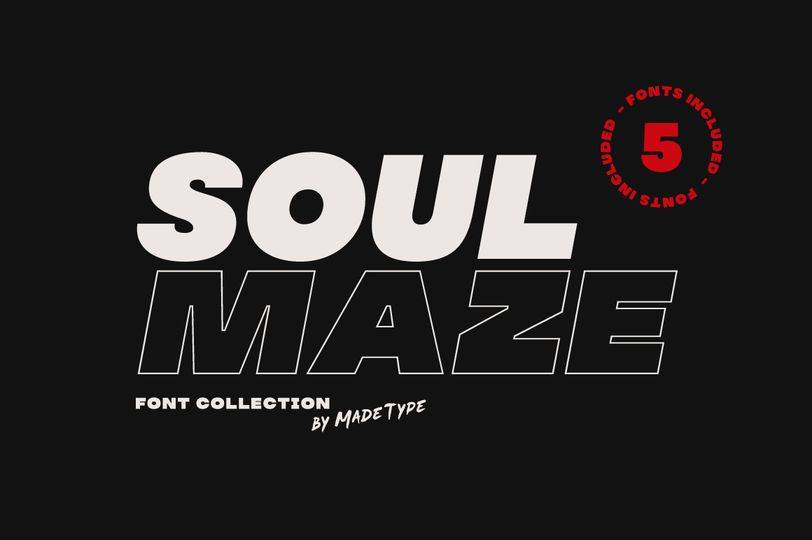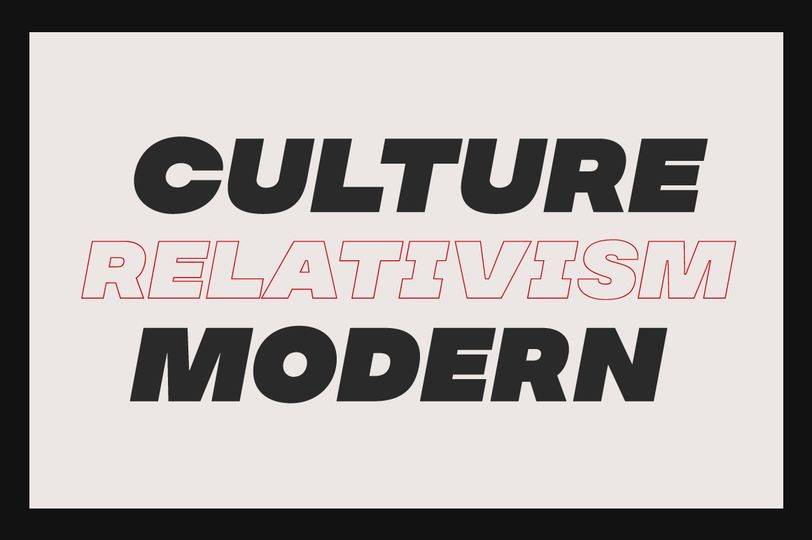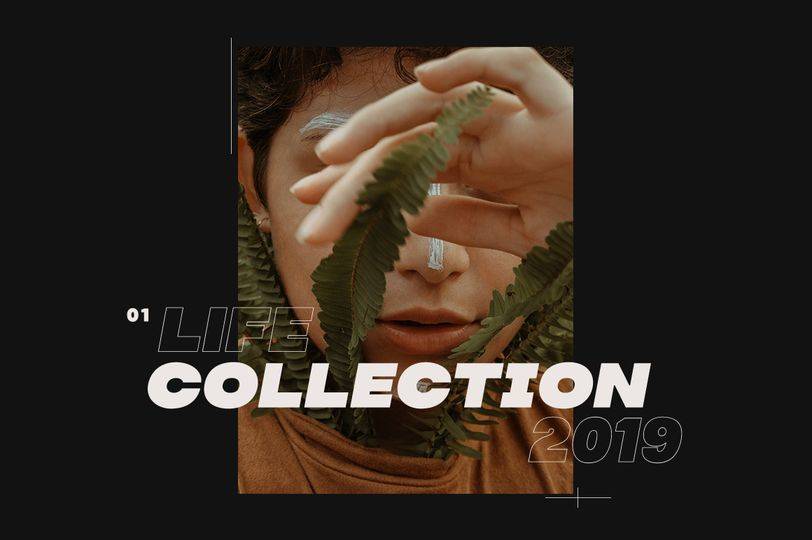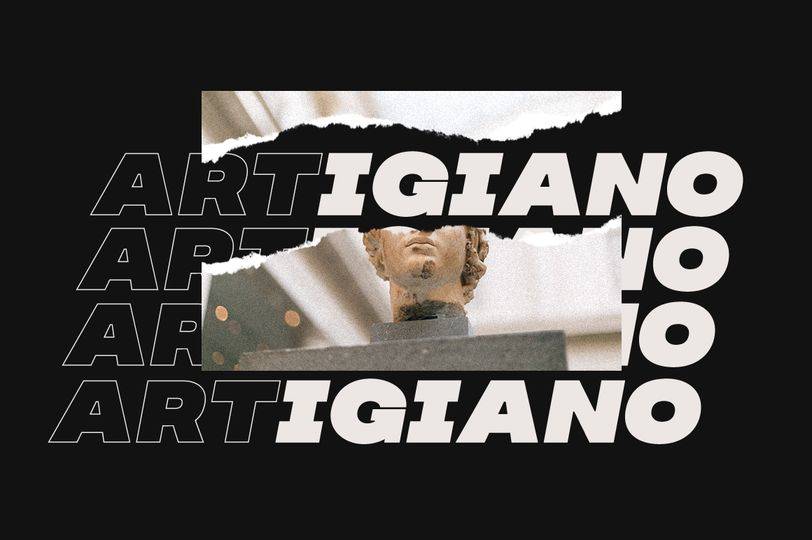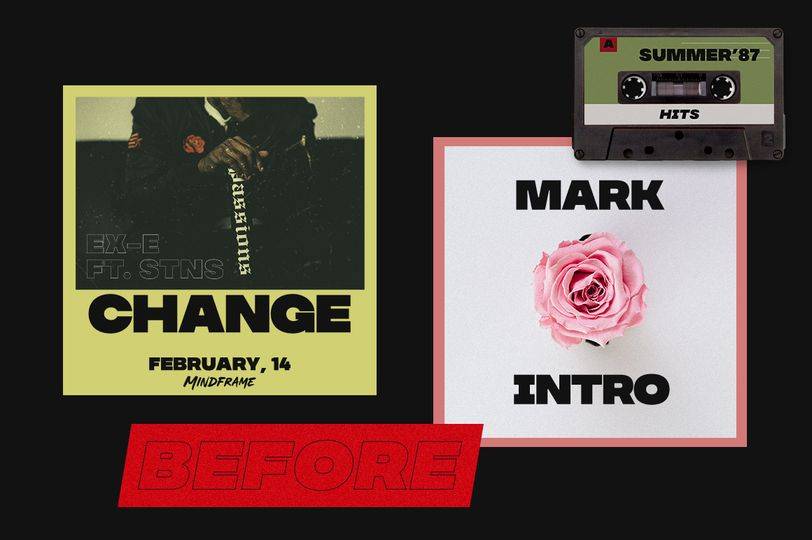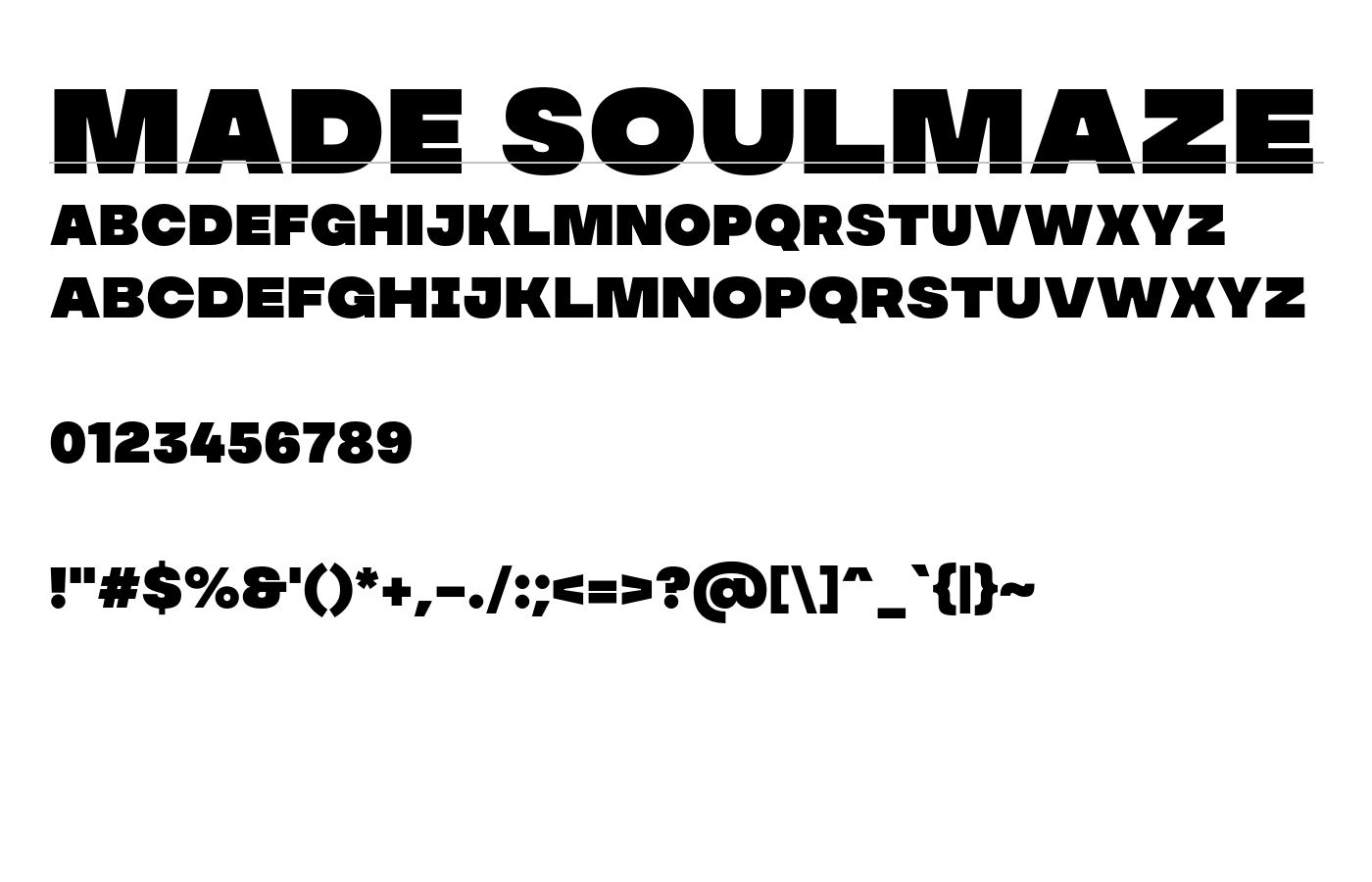
MADE Soulmaze is a bold, heavy sans serif font with a strong, compact presence and slightly rounded edges that soften its powerful look. Its wide, uniform strokes and clean letterforms make it ideal for impactful headlines, logos, and branding that demand attention while maintaining a modern, approachable feel. This typeface works best in display settings where clarity and strength are needed without sacrificing a touch of friendliness.
MADE Soulmaze
About MADE Soulmaze
| Font family | MADE Soulmaze |
| Release date | 2019-01-17 |
| Designer | MadeType |